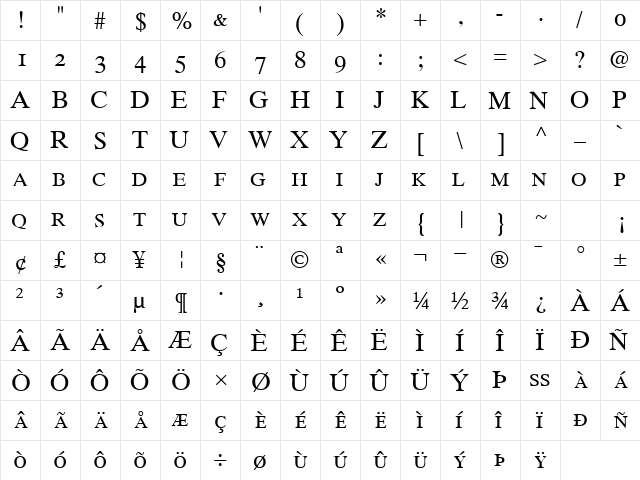
GrecoTenOSSCapsSSK Regular Font Preview
GrecoTenOSSCapsSSK Regular
Design Context for GrecoTenOSSCapsSSK Typeface
GrecoTenOSSCapsSSK takes a measured approach to typography — its balanced proportions and neutral character make it a reliable workhorse for both digital and print work.
Pro Tip: Use GrecoTenOSSCapsSSK in both headline and body roles to test its range before committing to a single application.